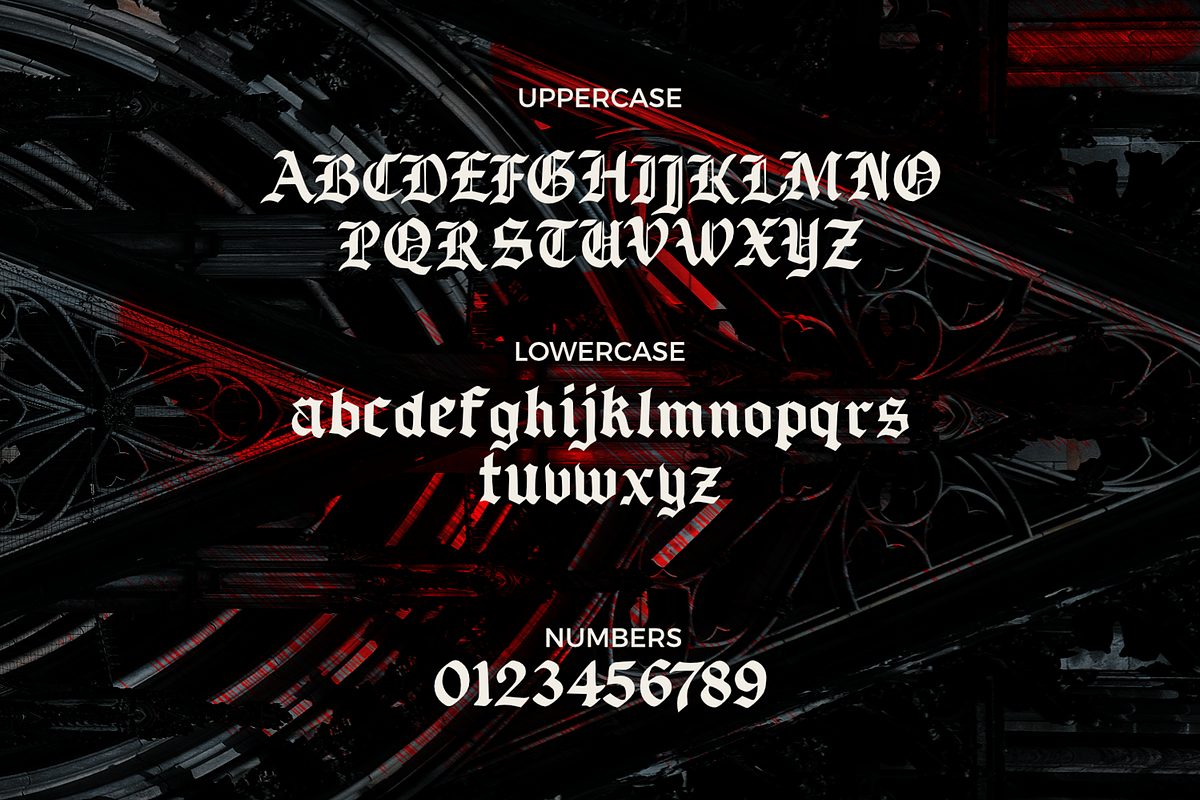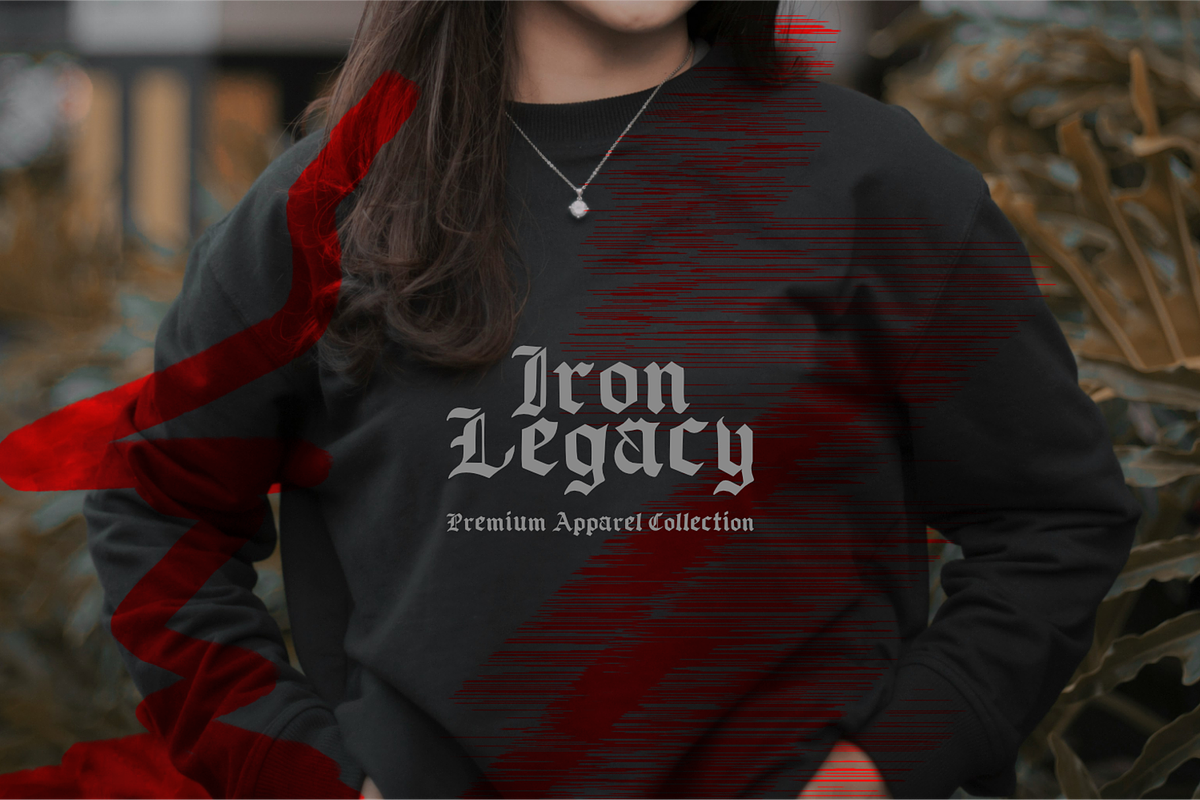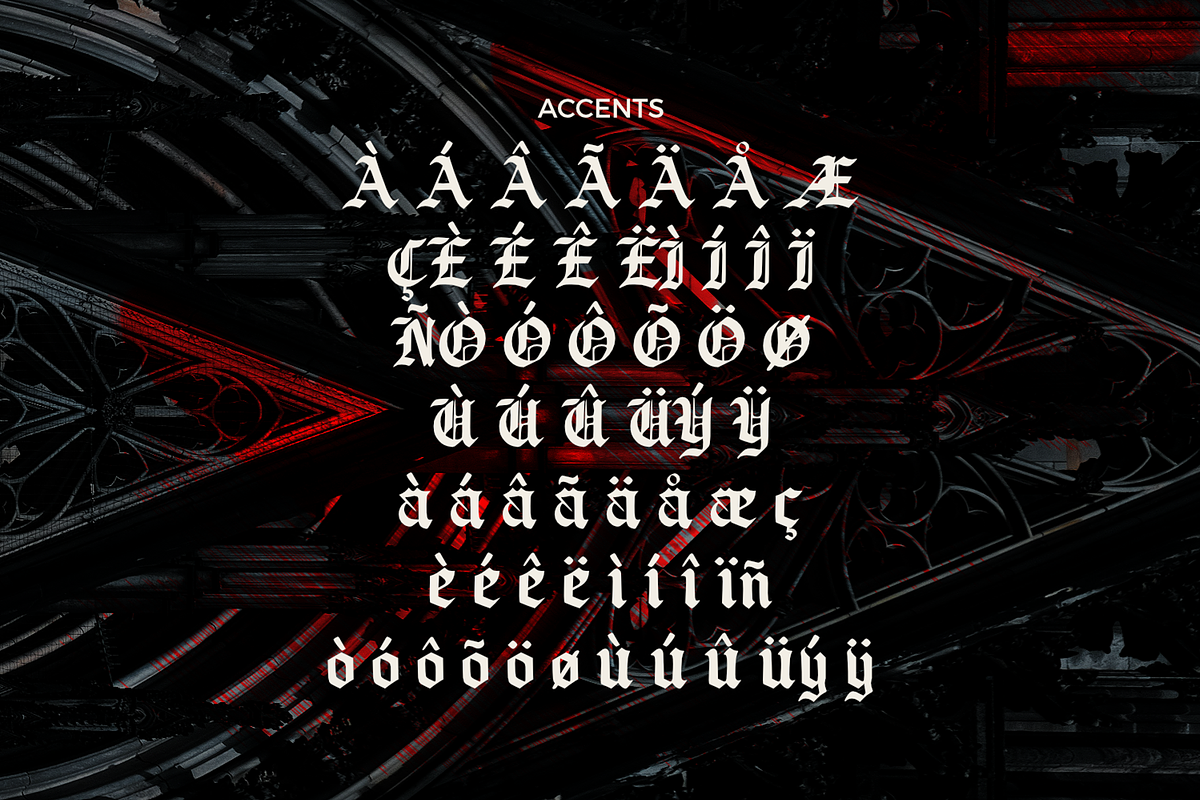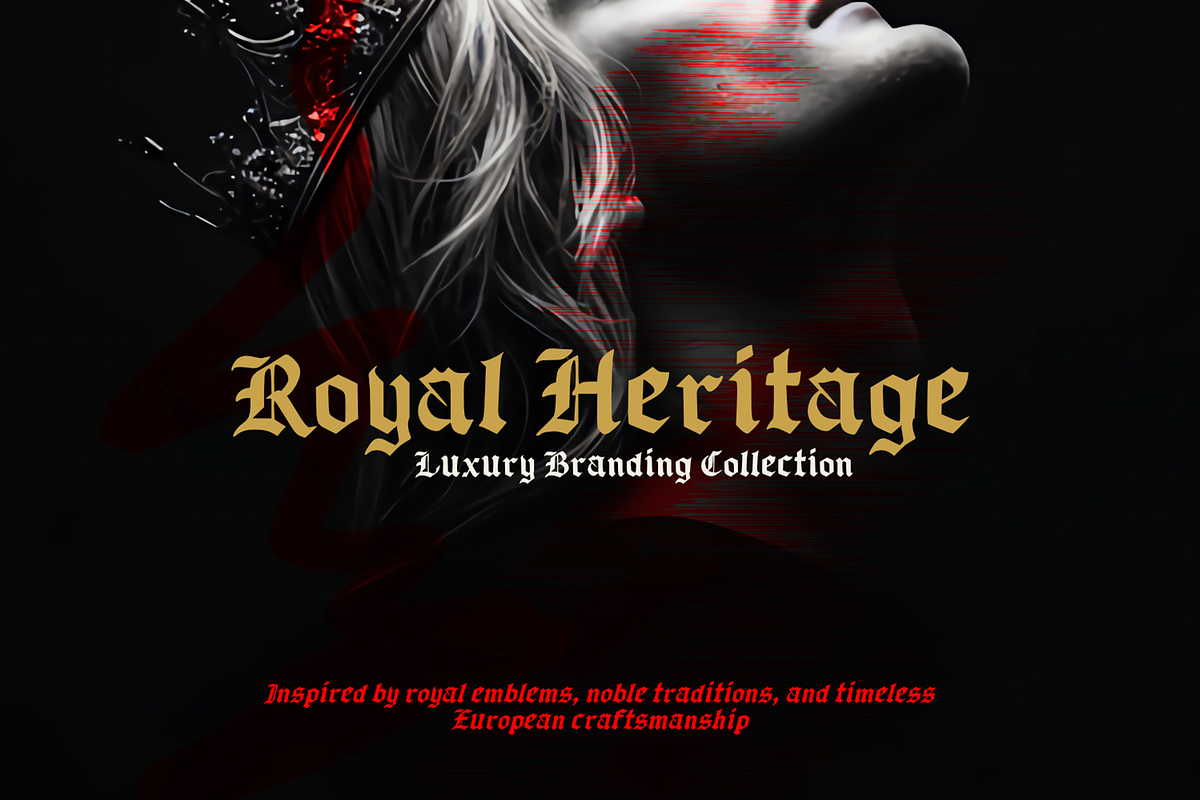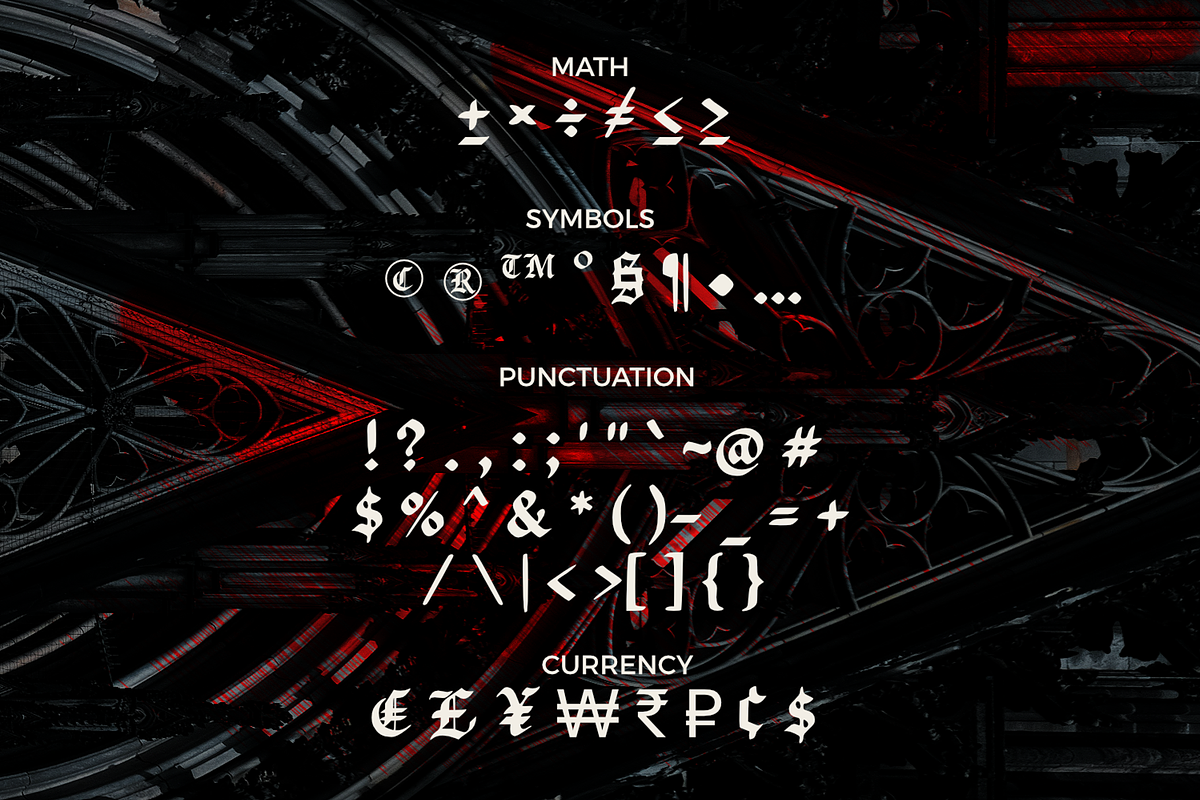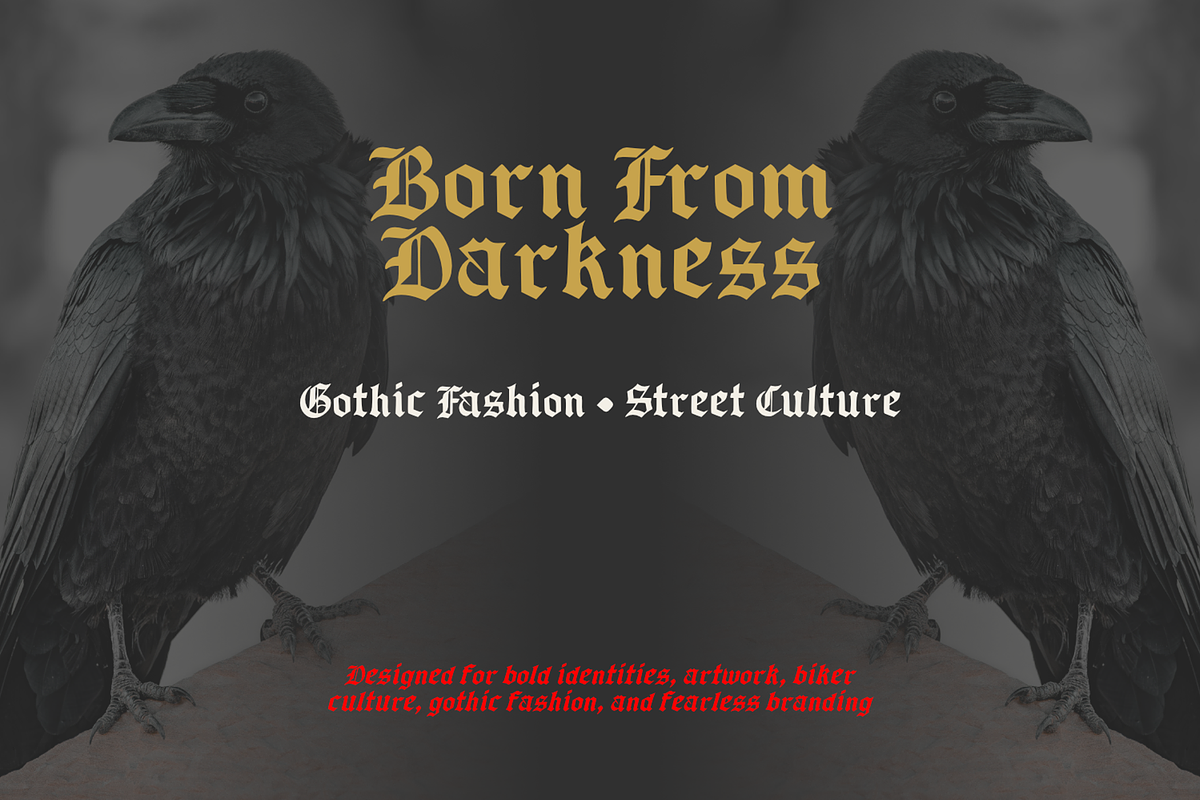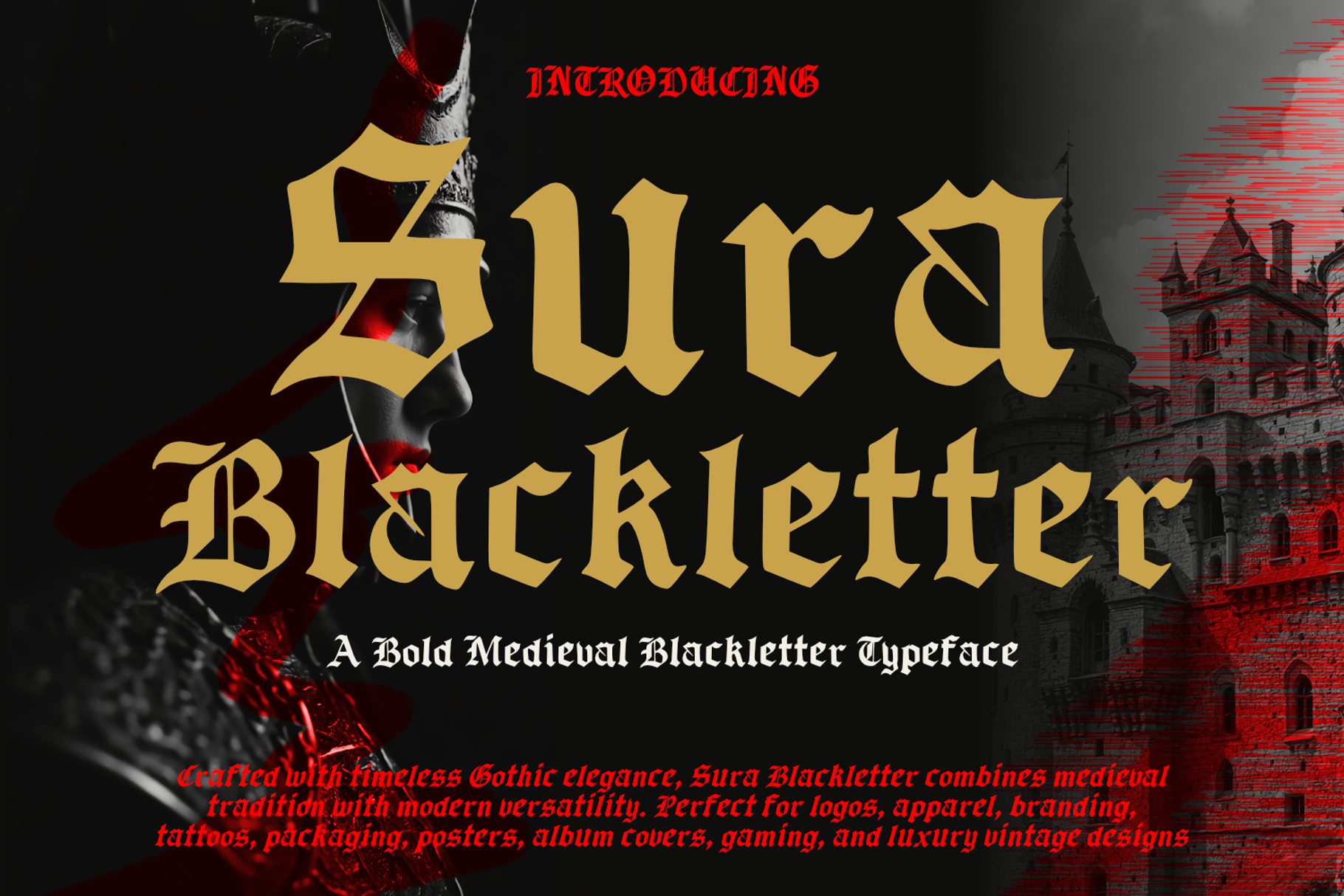
Sura Blackletter Gothic Typeface
Sura Blackletter is a bold Gothic typeface inspired by classic medieval lettering and timeless Old English aesthetics. Featuring sharp angular strokes and authentic Blackletter details, this display font delivers a strong, elegant, and historical character. Perfect for logos, branding, apparel, posters, album covers, gaming, merchandise, packaging, book covers, certificates, and luxury vintage designs. Sura Blackletter brings a powerful visual presence while maintaining excellent readability for impactful headlines and creative projects